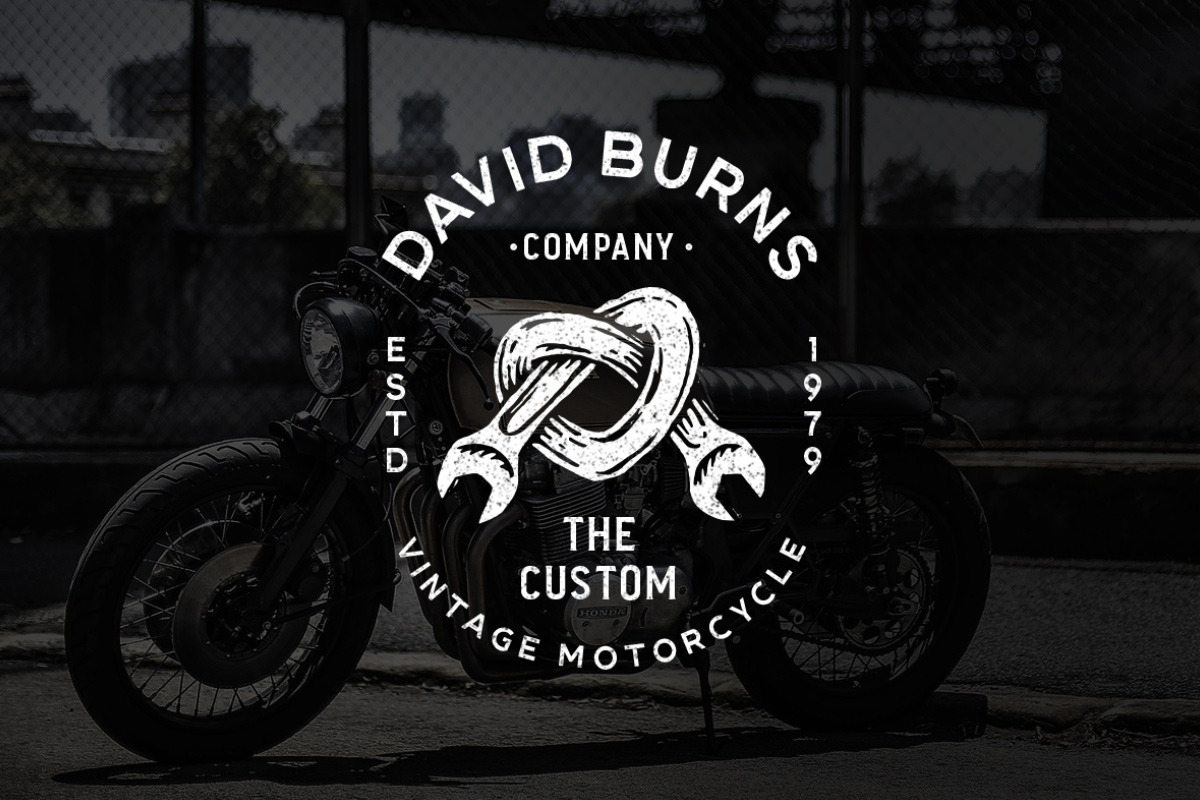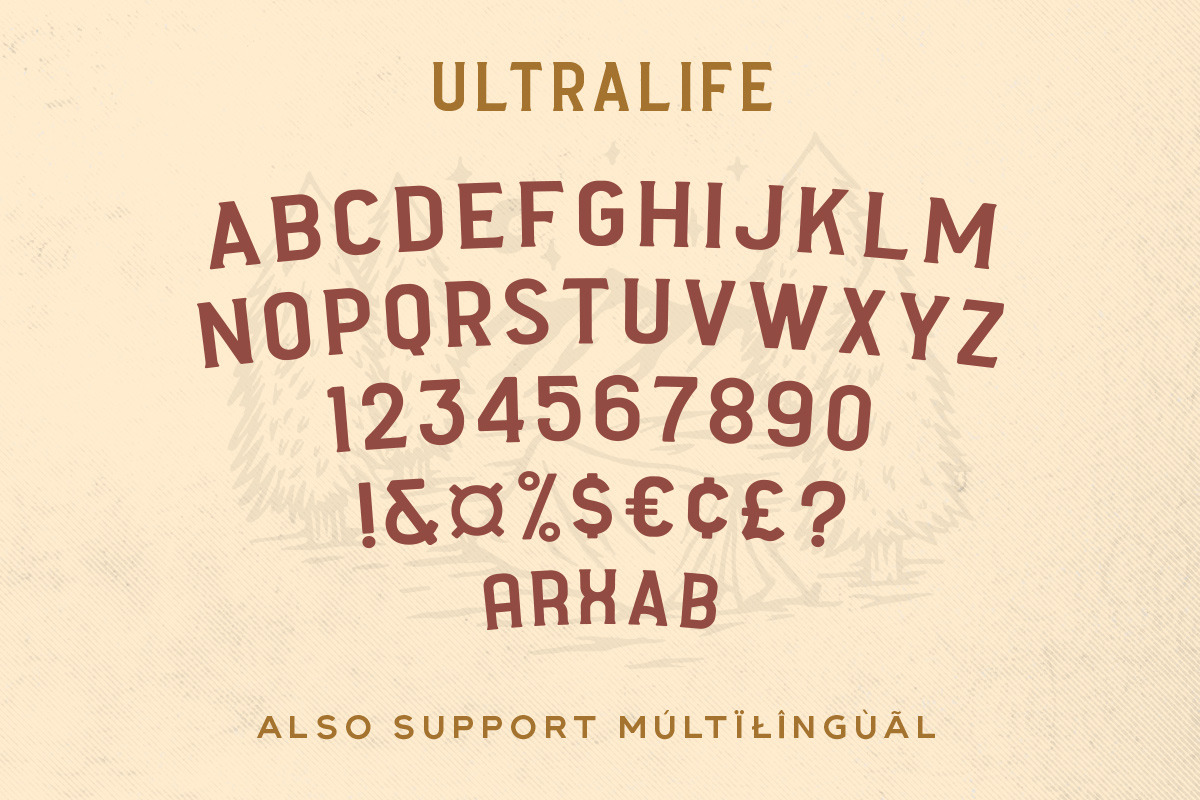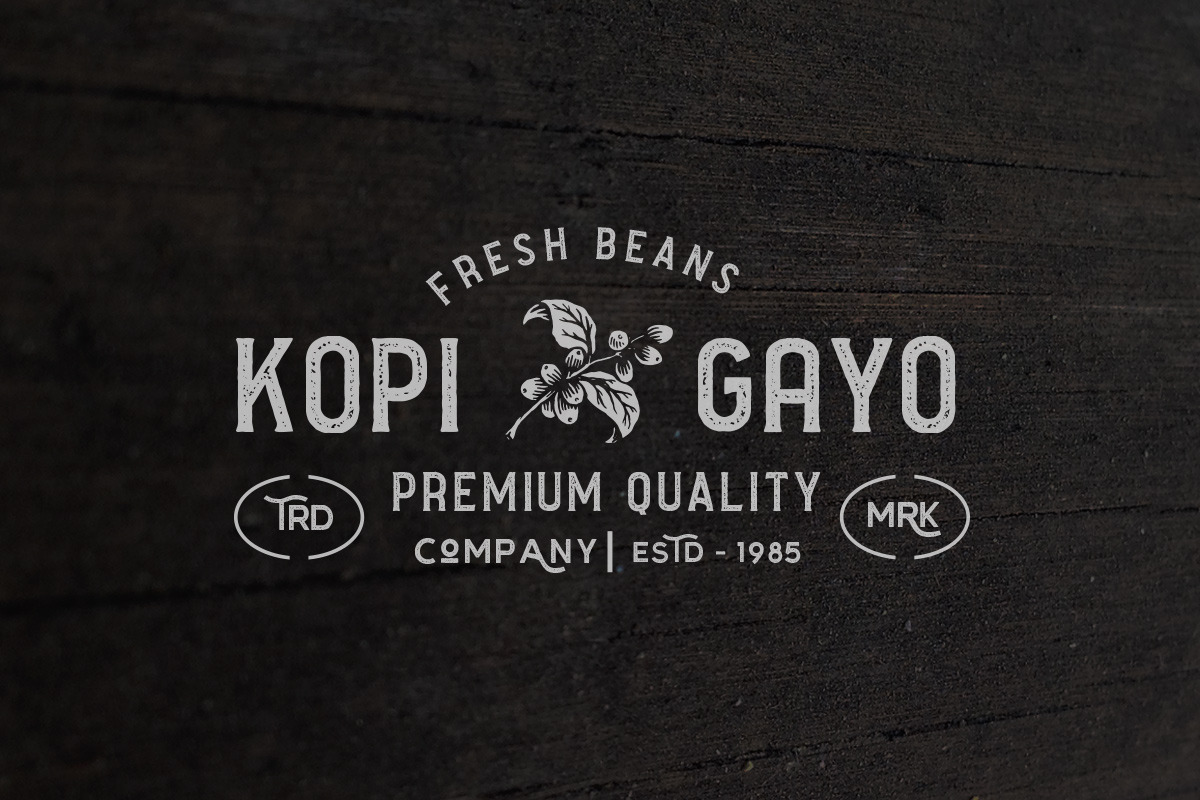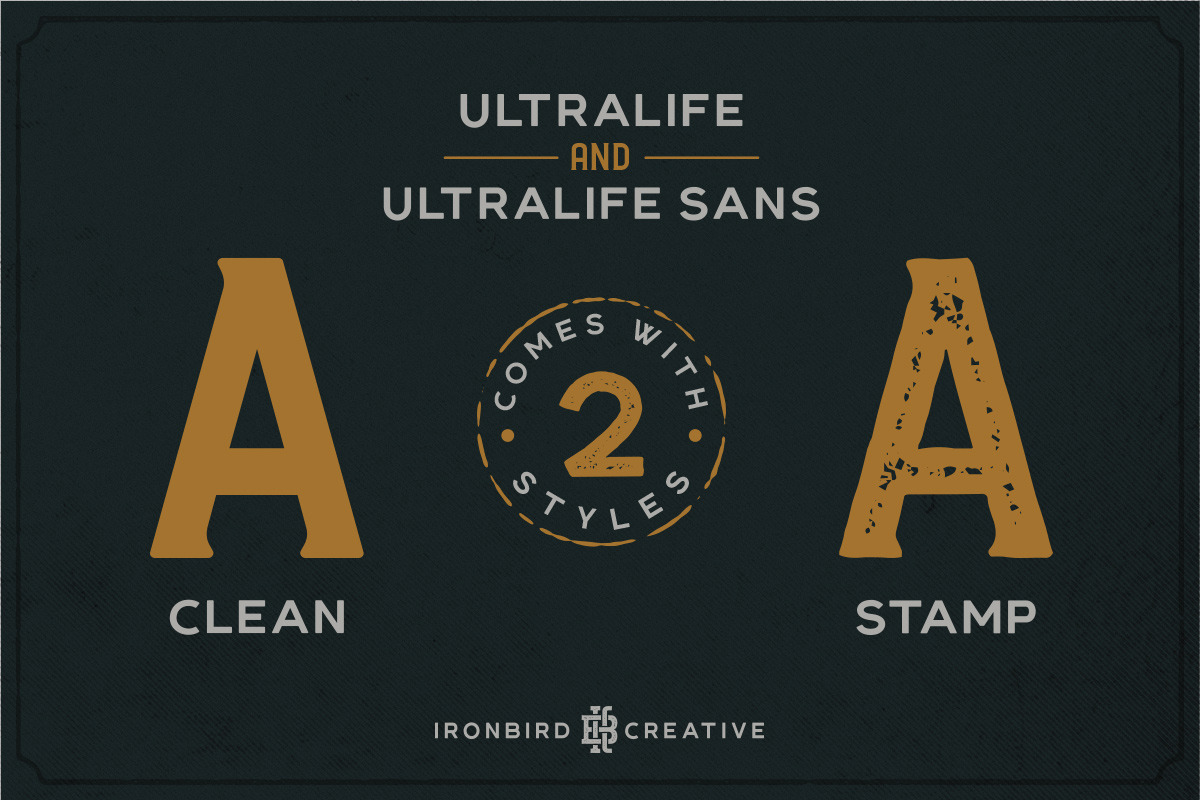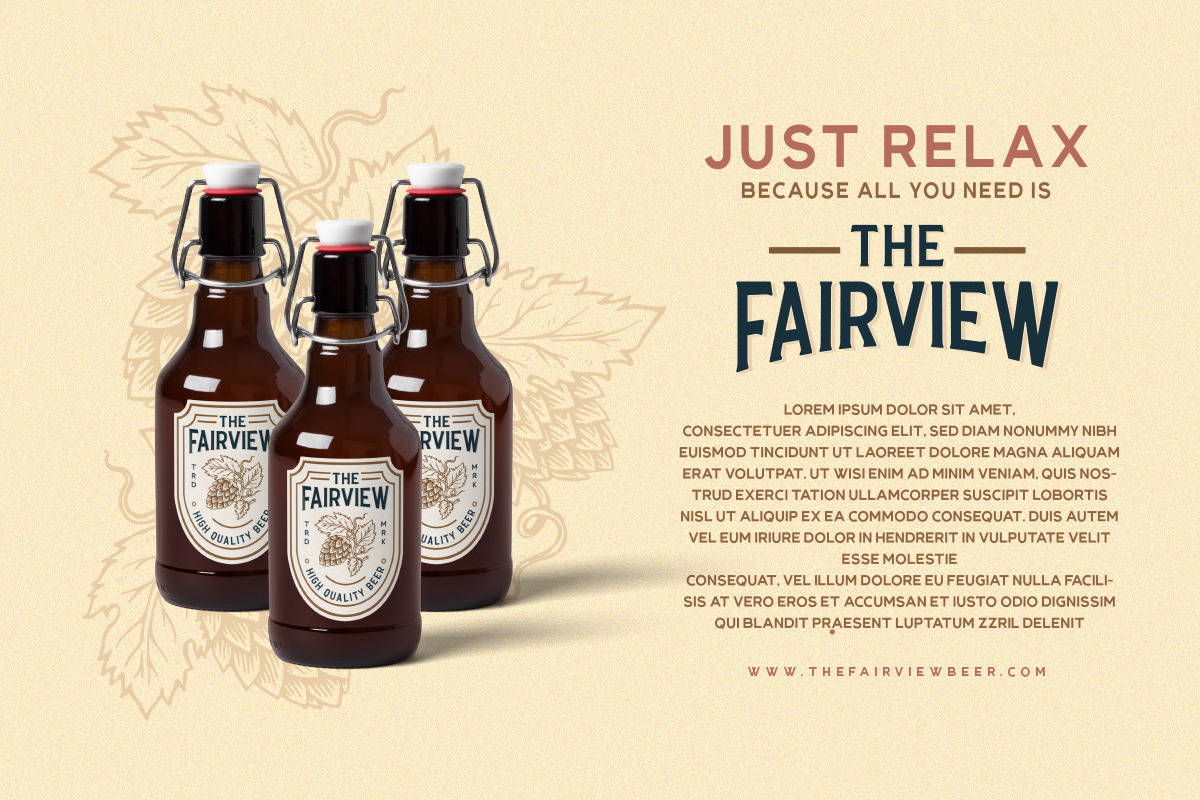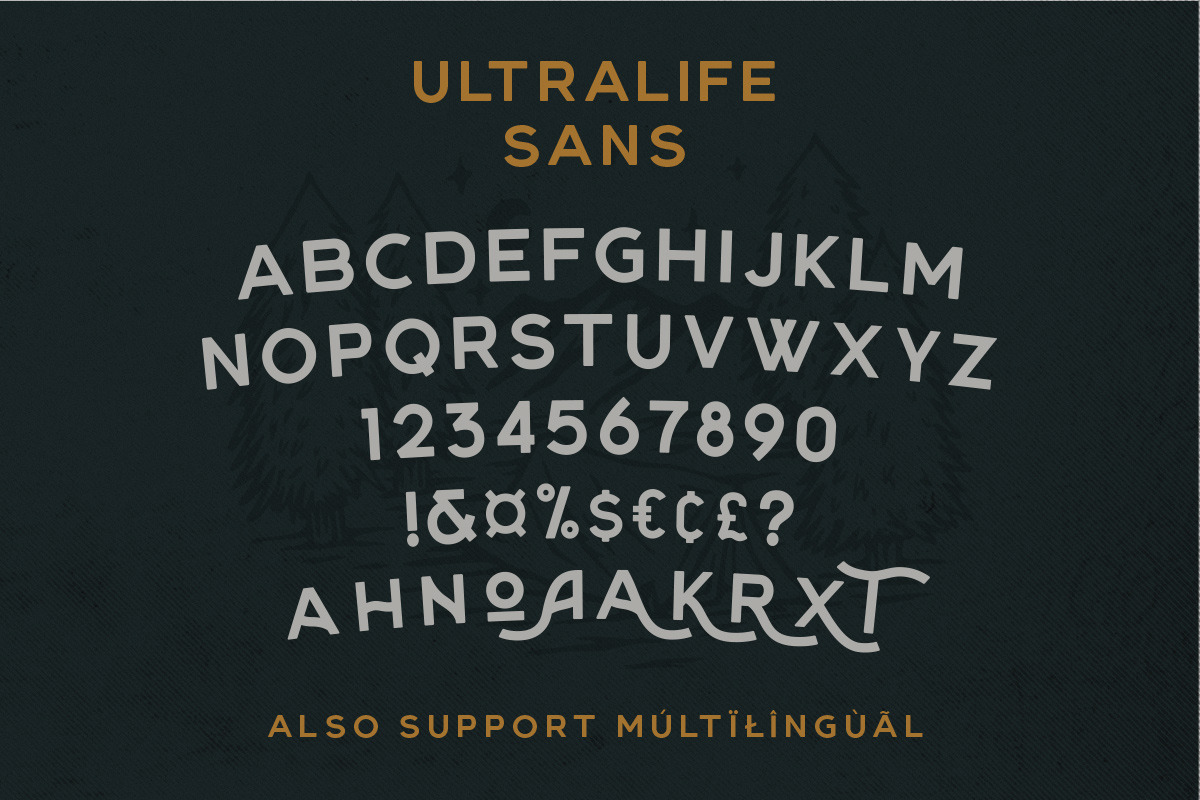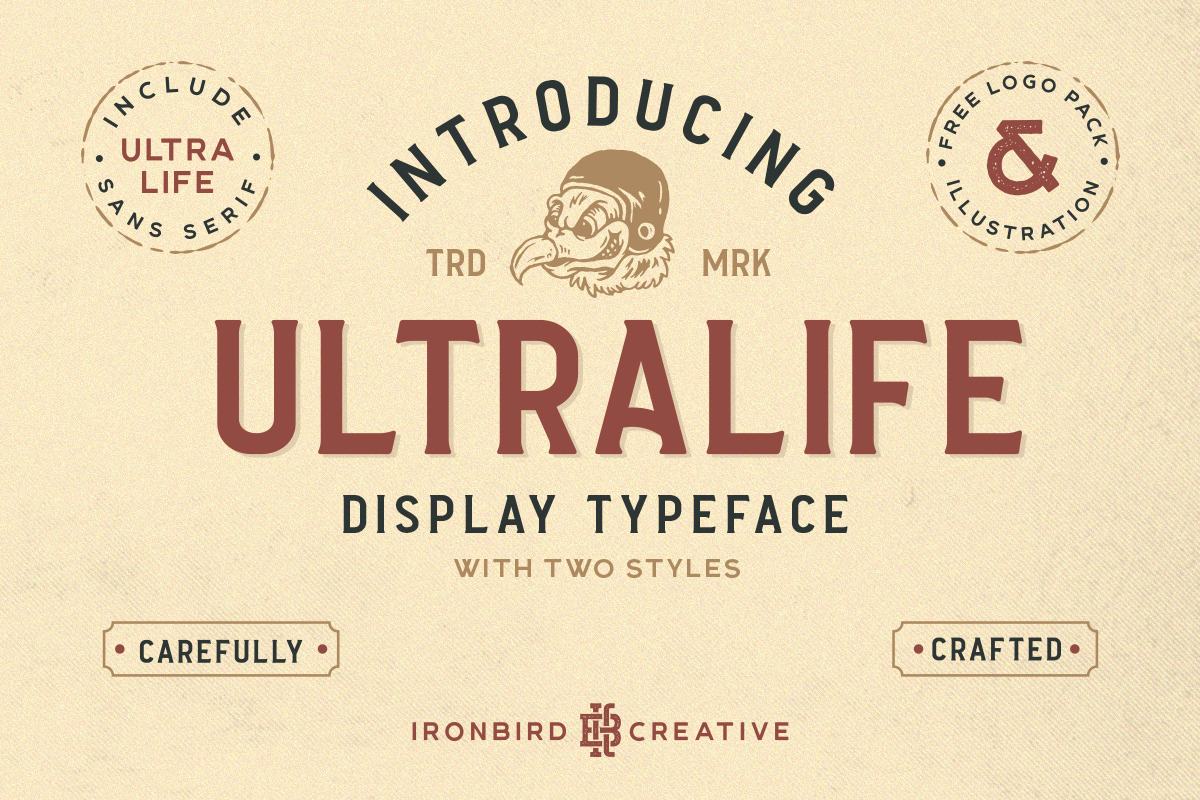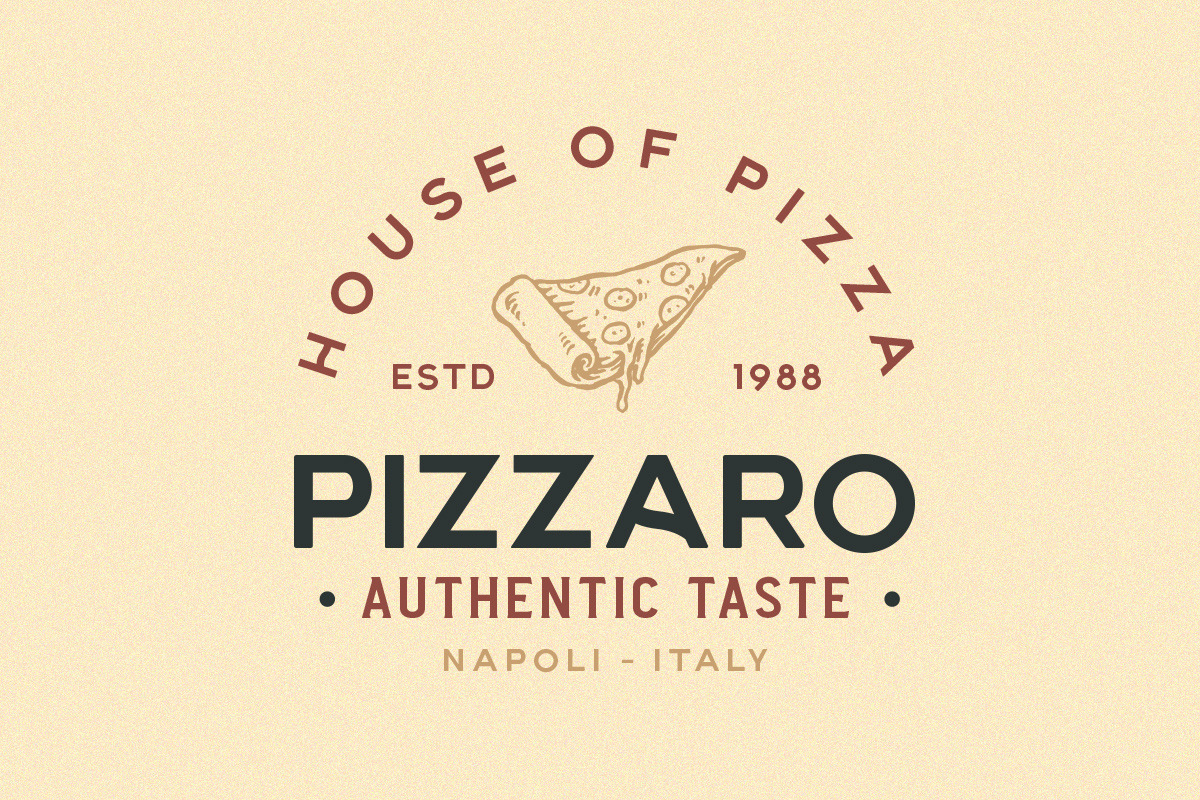
Ultralife Typeface
Introducing, Ultralife Typeface!
Ultralife is a Display Typeface Family. Contain two fonts, Ultralife and Ultralife Sans, comes with two styles, clean and stamp. You can use this font for every project. Suitable for logotype, apparel, invitation, branding, packaging, advertising etc. This font also come with FREE illustrations and logo pack to make better design. This font duo also support multilingual, number and symbol, alternates, swash, and underline. Also this font already PUA Encoded.
Multilingual Support support many different languages 20+ . included AÀÁÂÃÄÅCÇDÐEÈÉÊËIÌÍÎÏNÑOØÒÓÔÕÖUÙÜÚÛWYÝŸỲŸÆŒßÞþ